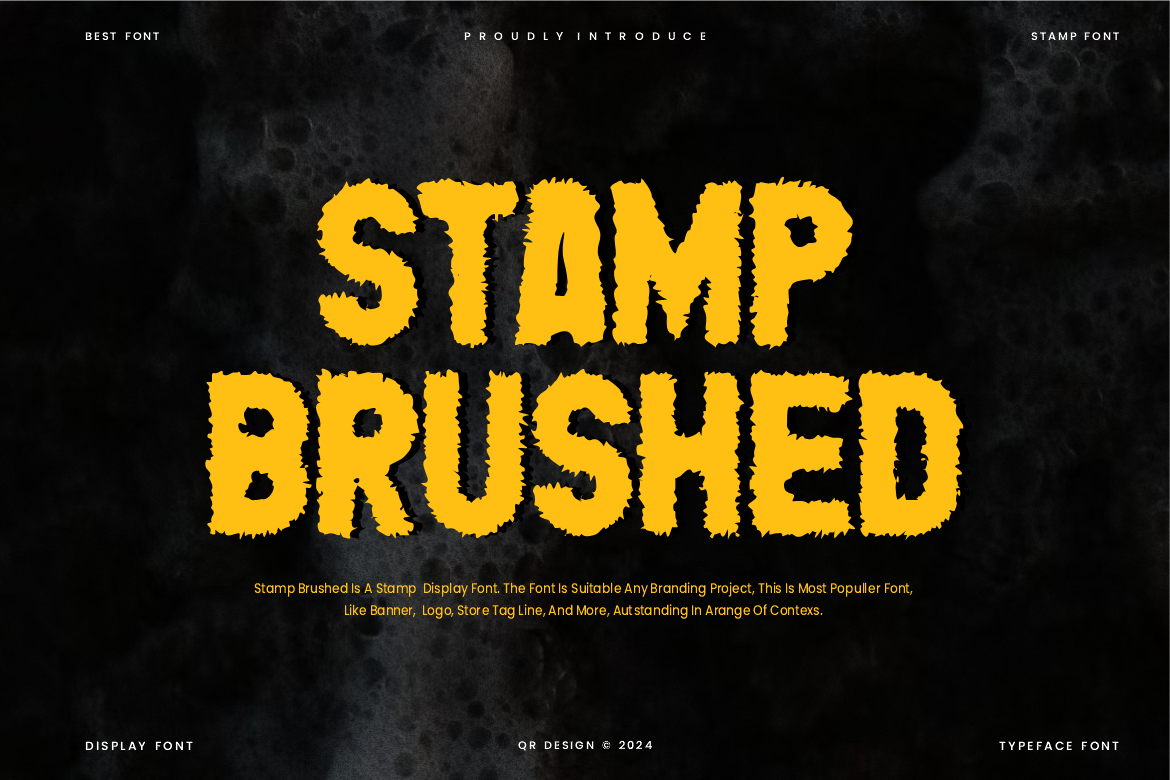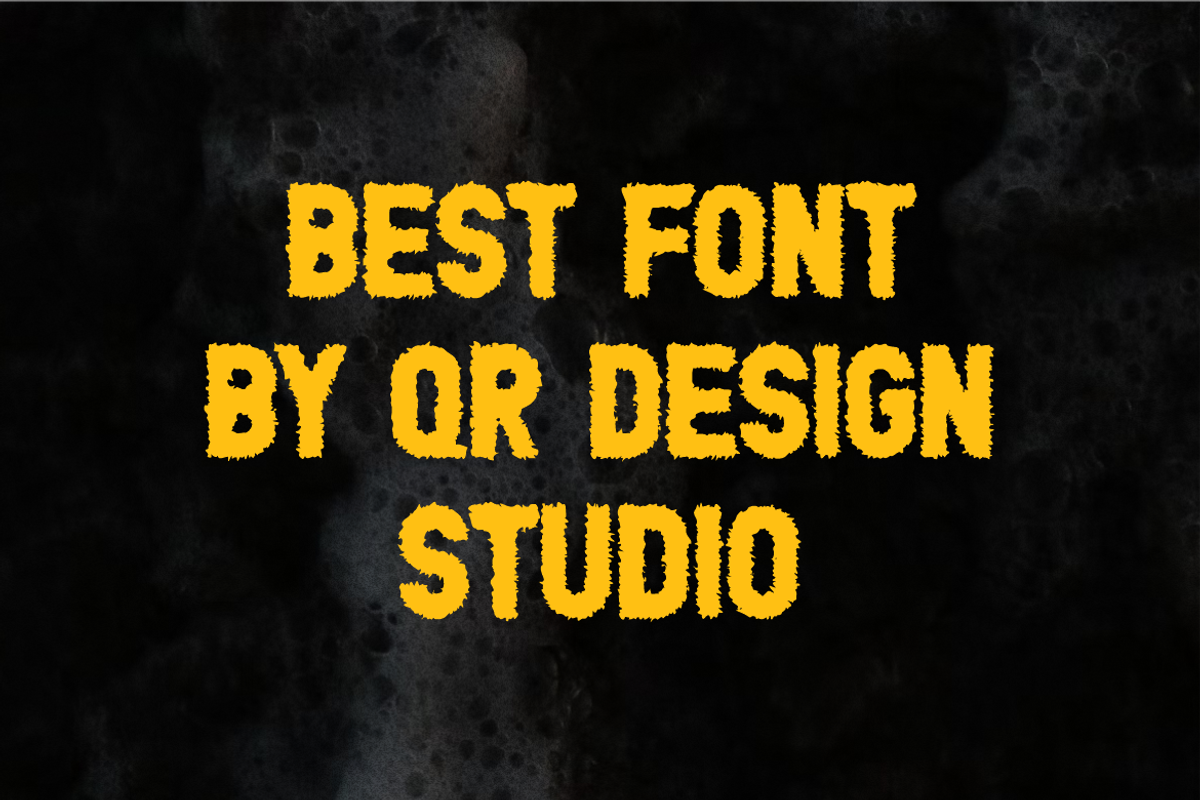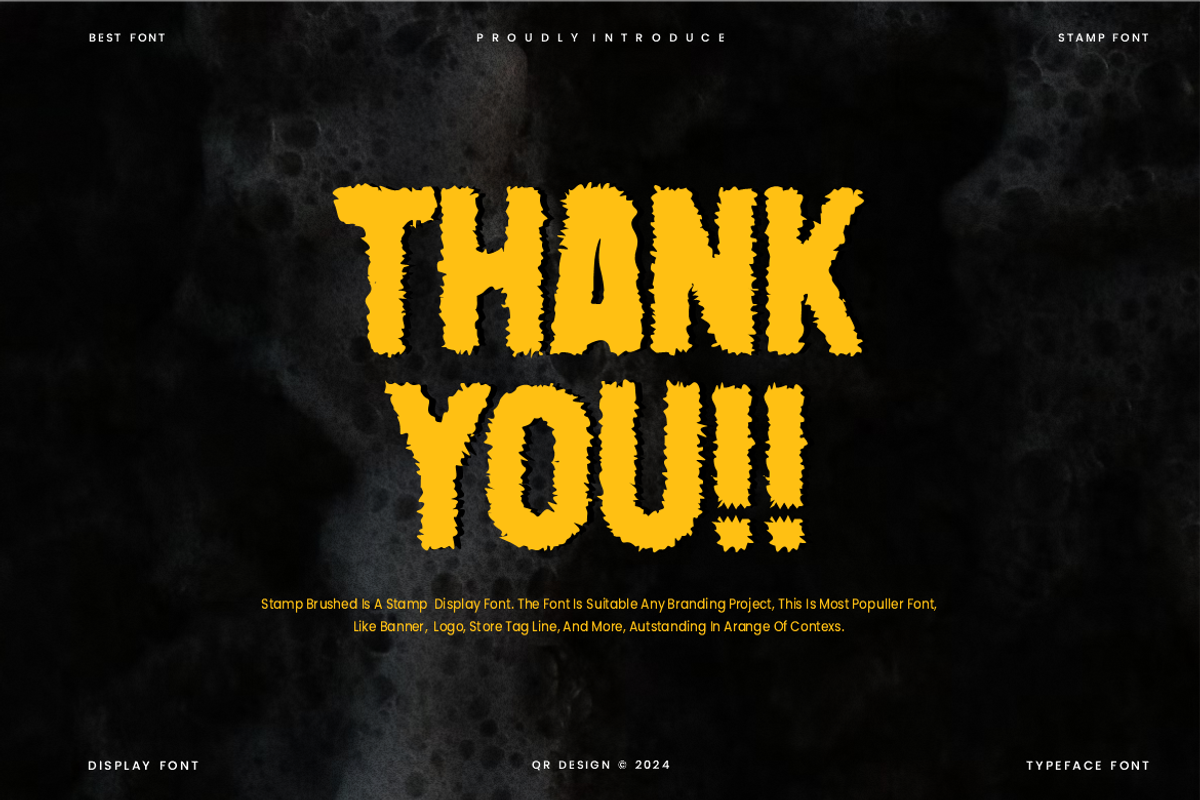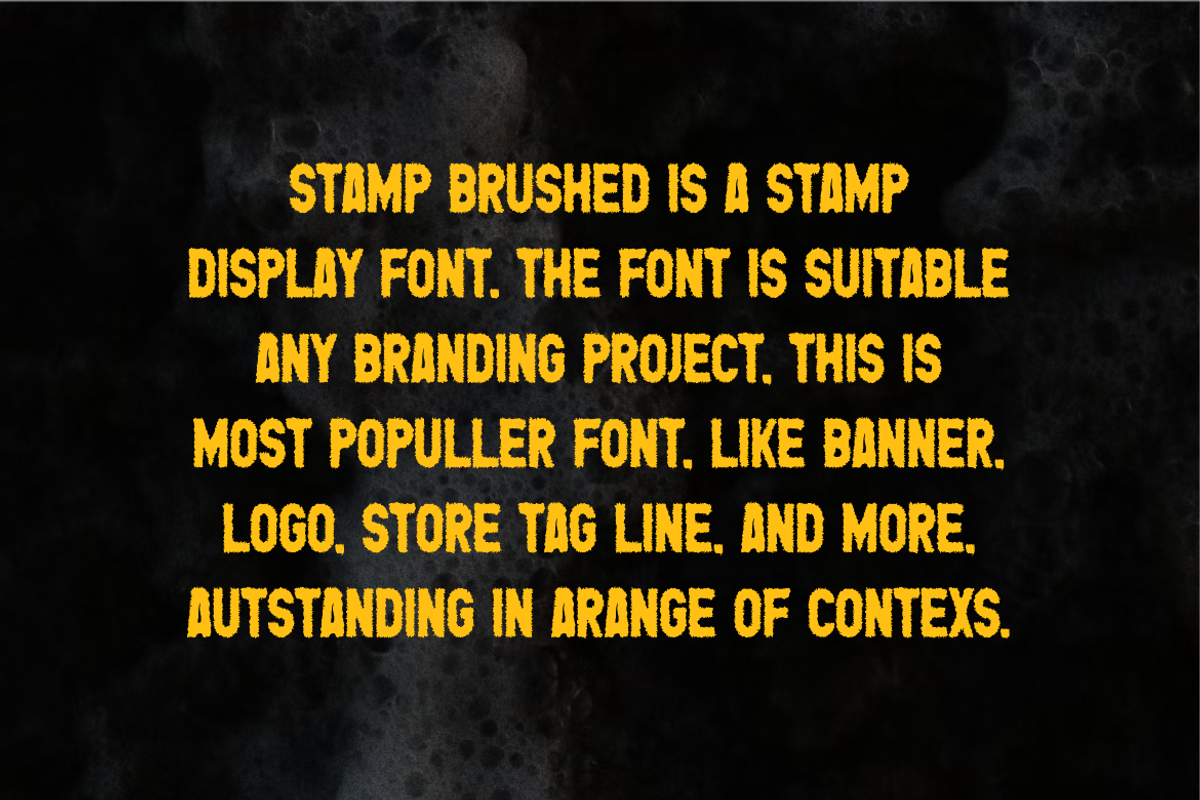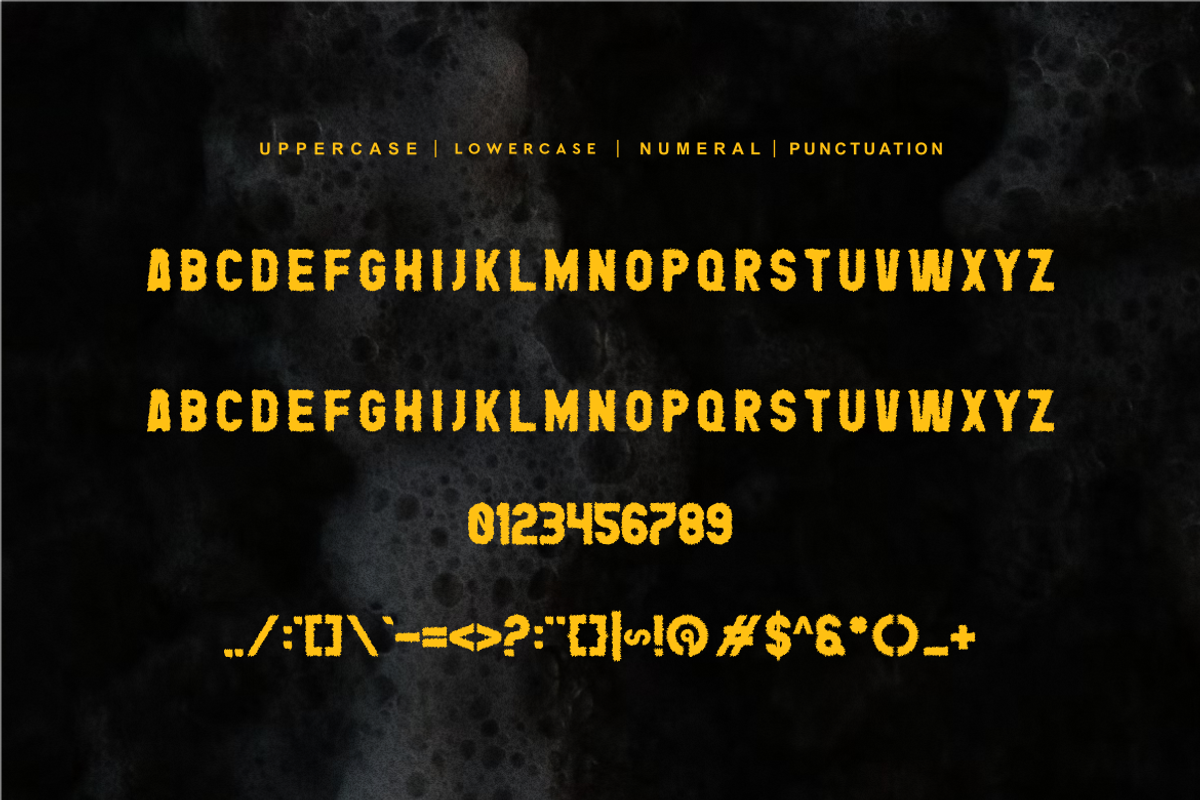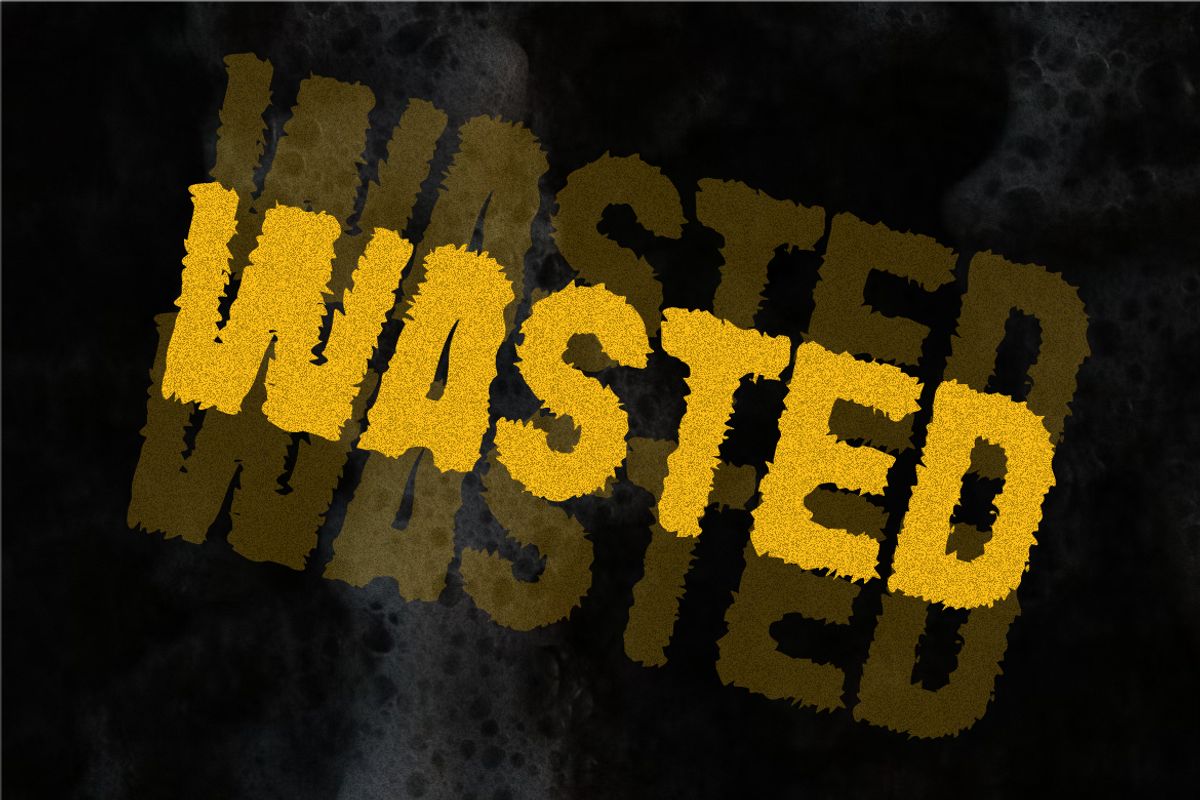
Stamp Brushed Font
Stamp Brushed Font is a bold and authentic display font. The font is suitable for any branding project like poster, logo, sport, and many more. Outstanding in a wide range of contexts.